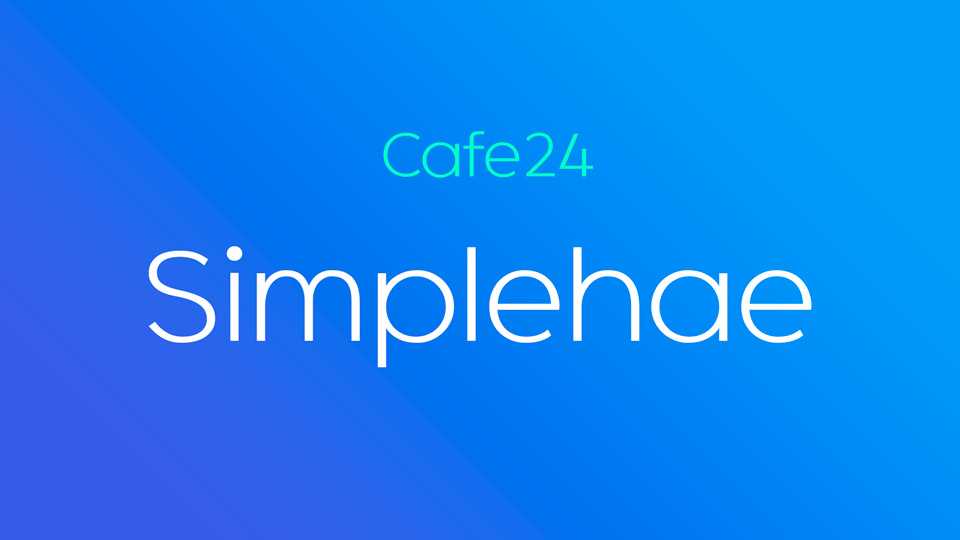
Download Simplehae font, a basic geometric sans serif featuring modern, workaday letterforms with a tall x-height for clarity and legibility. Simplehae is well suited for a variety of typographic applications such as headlines and small texts.
Designer: Cafe24